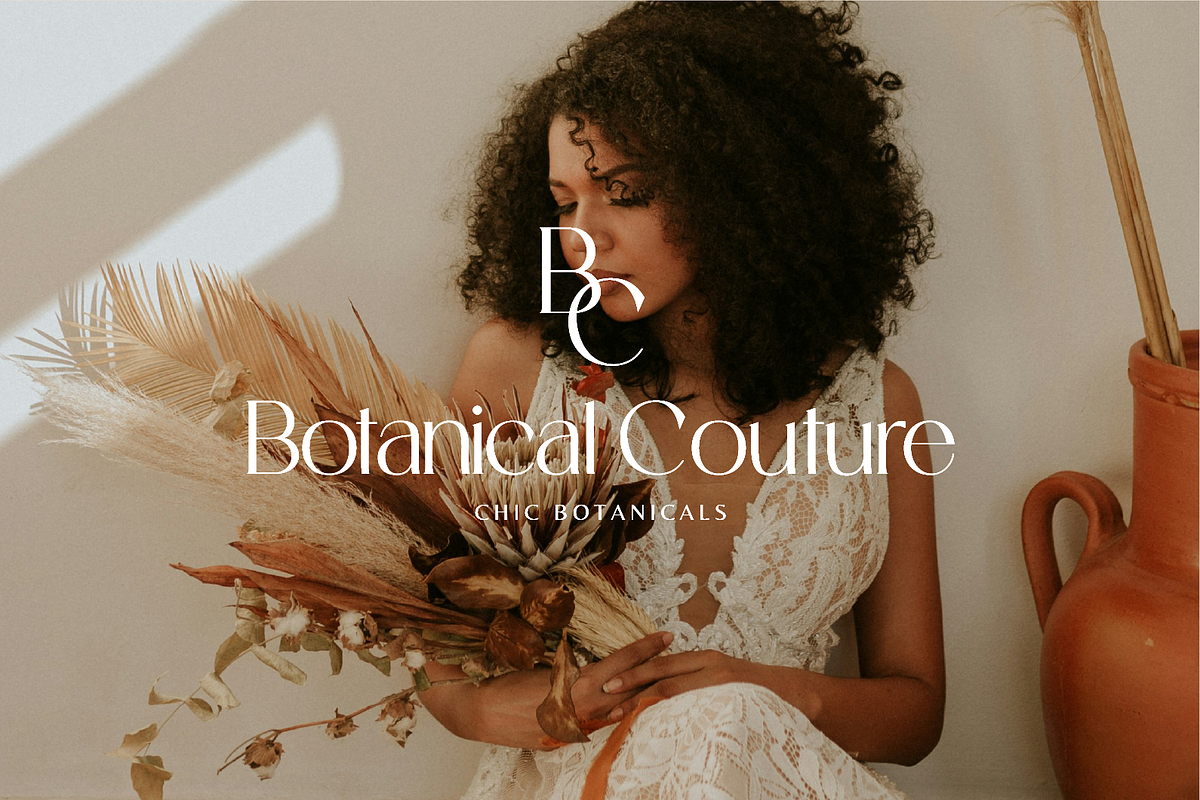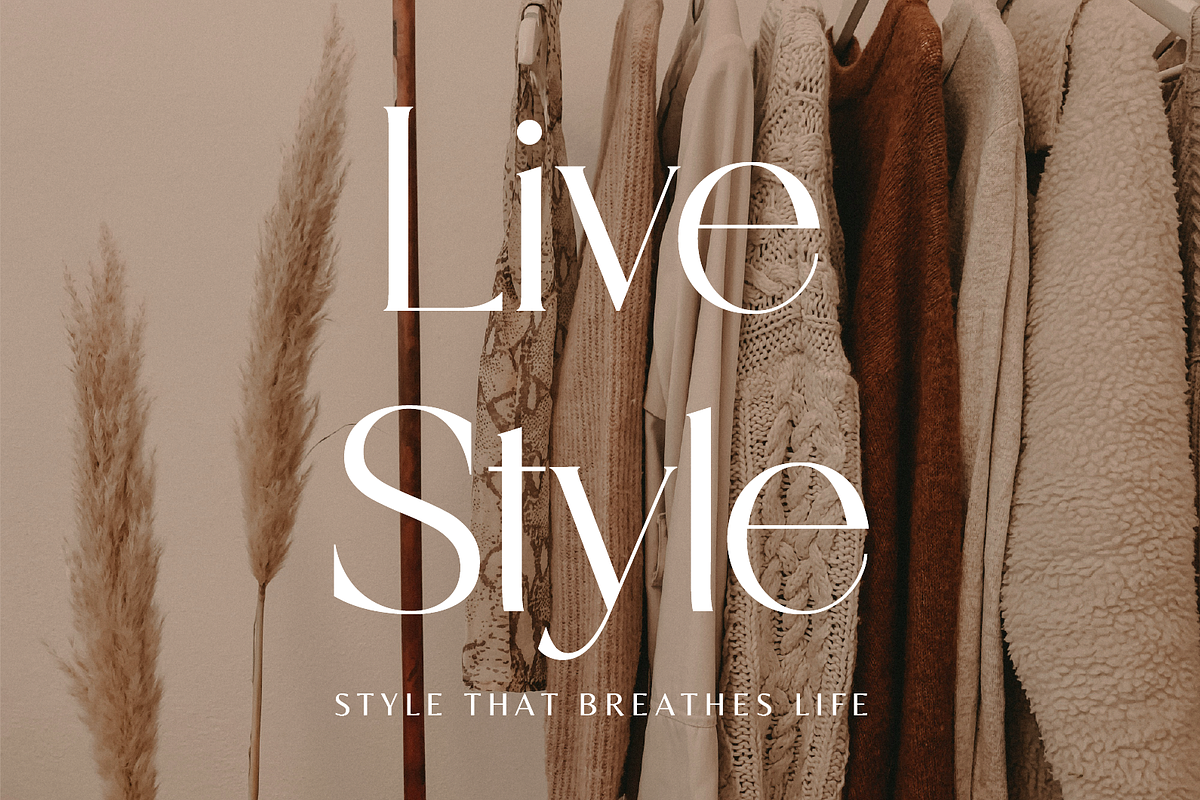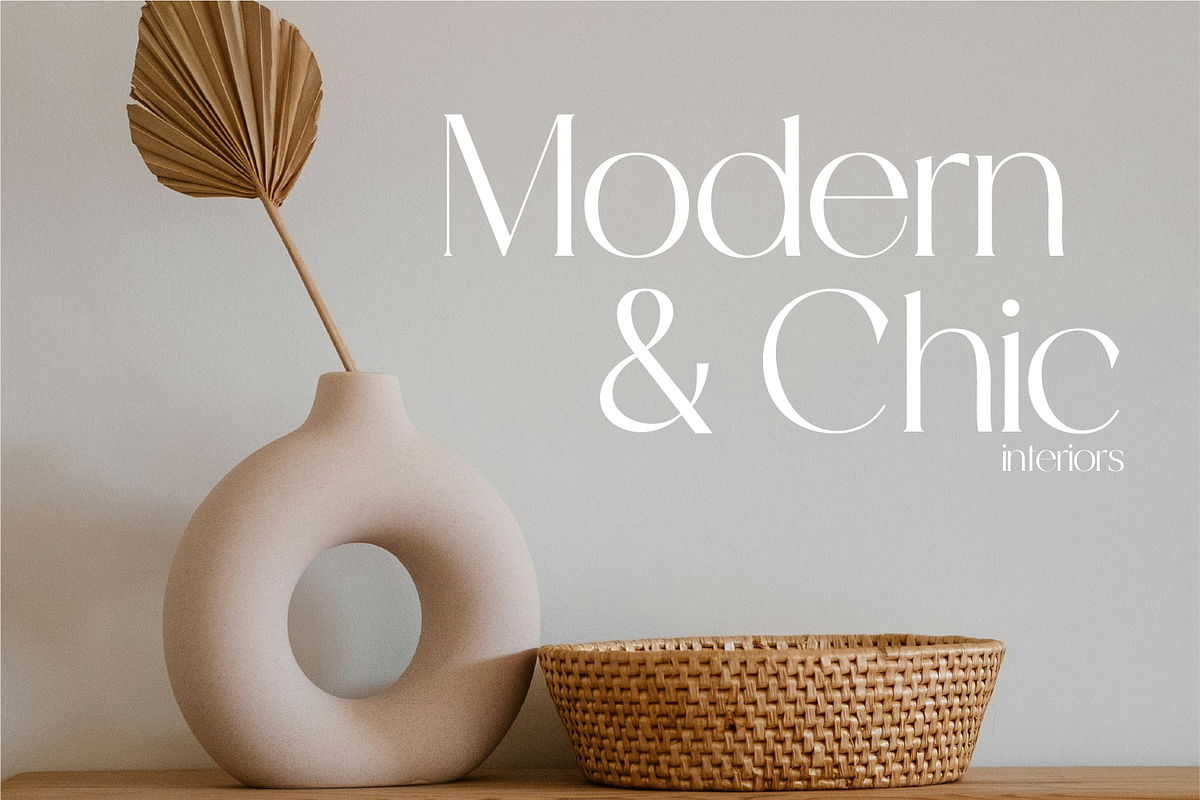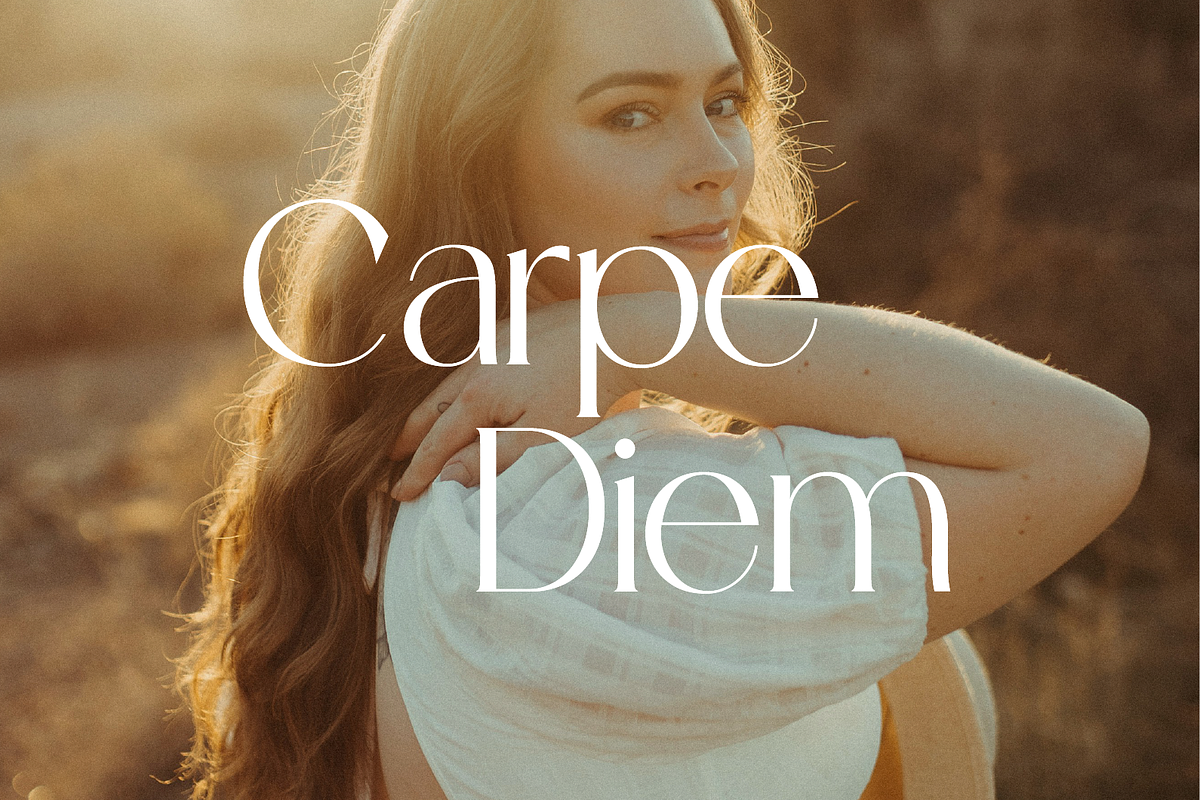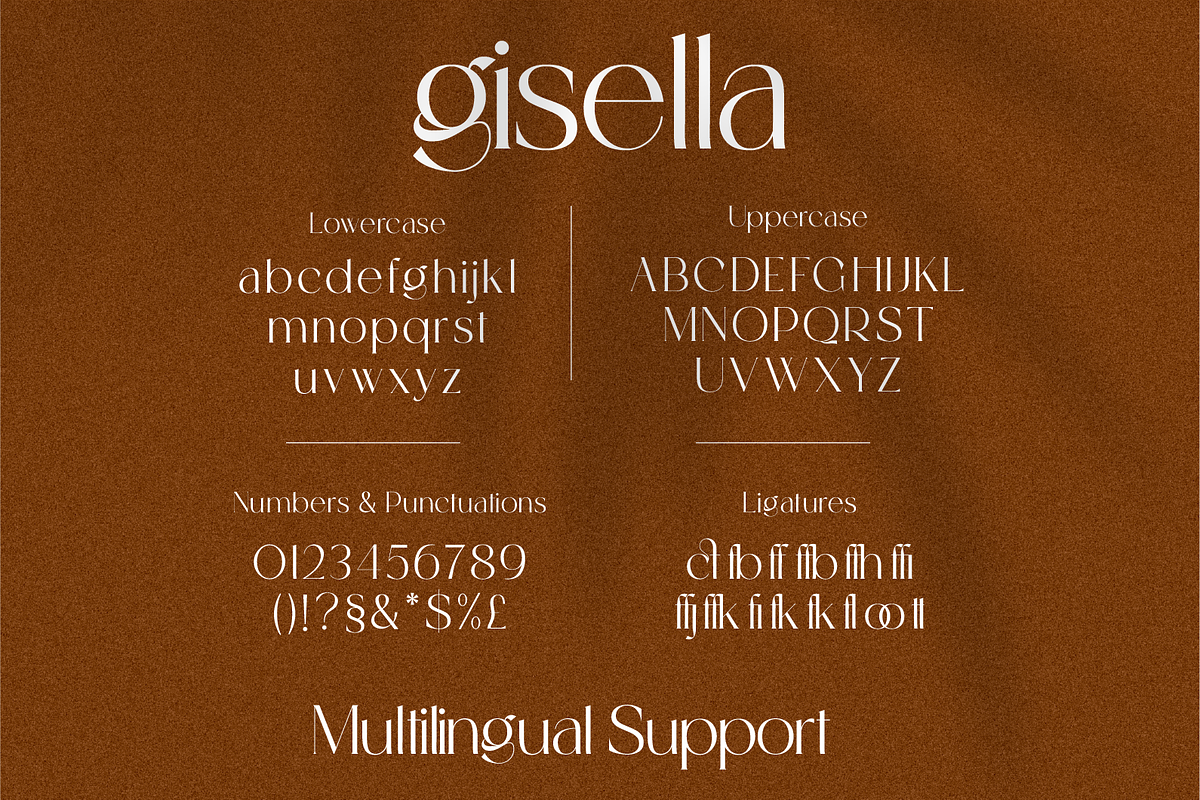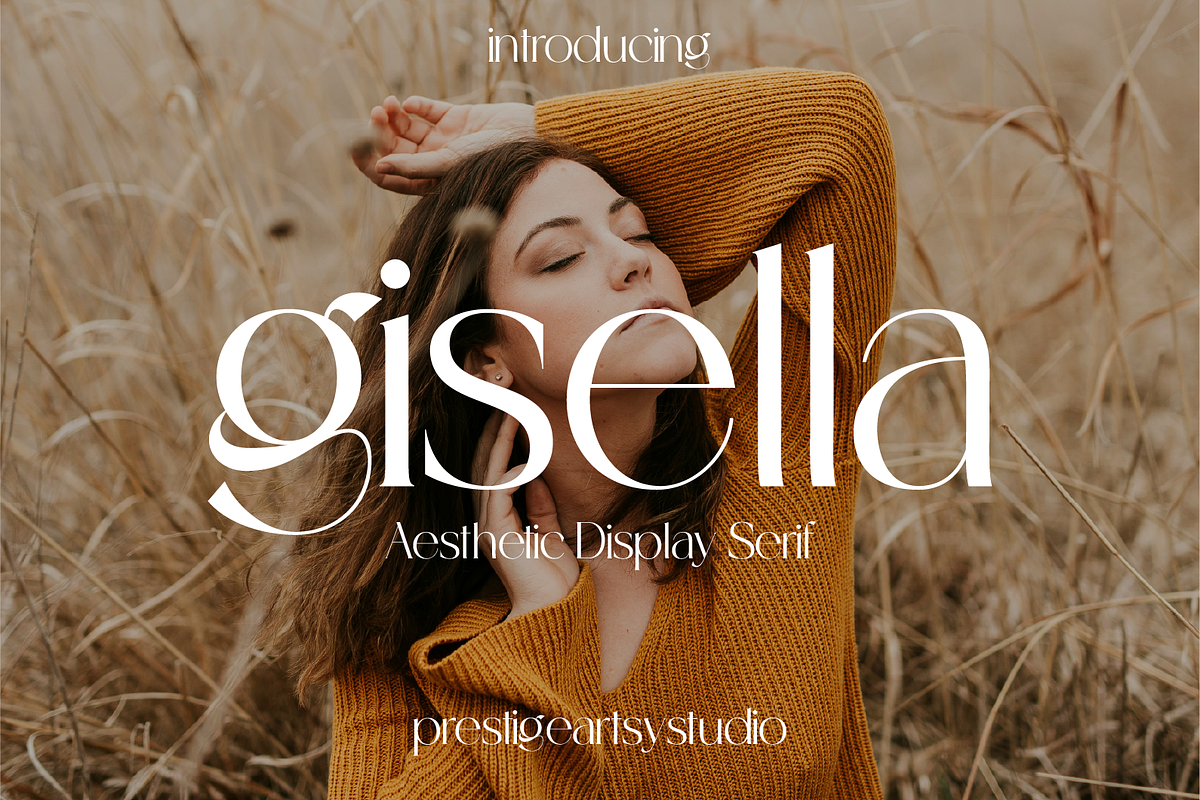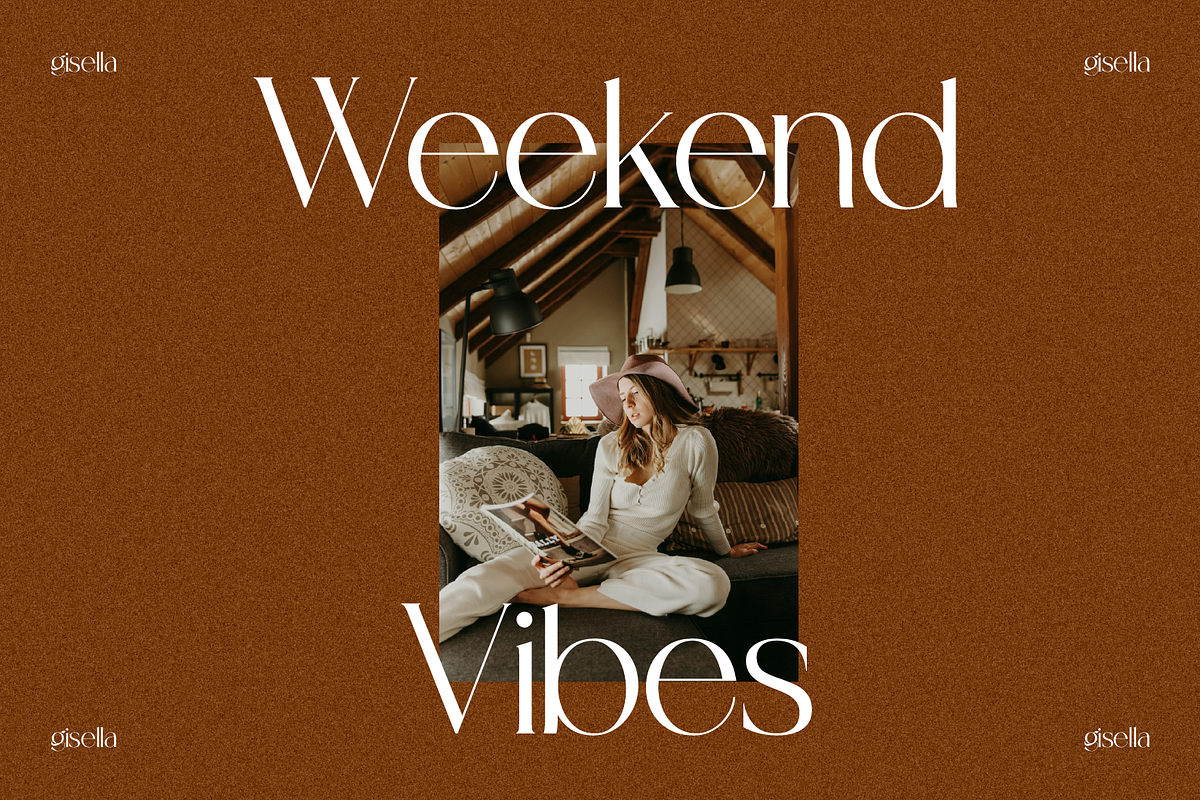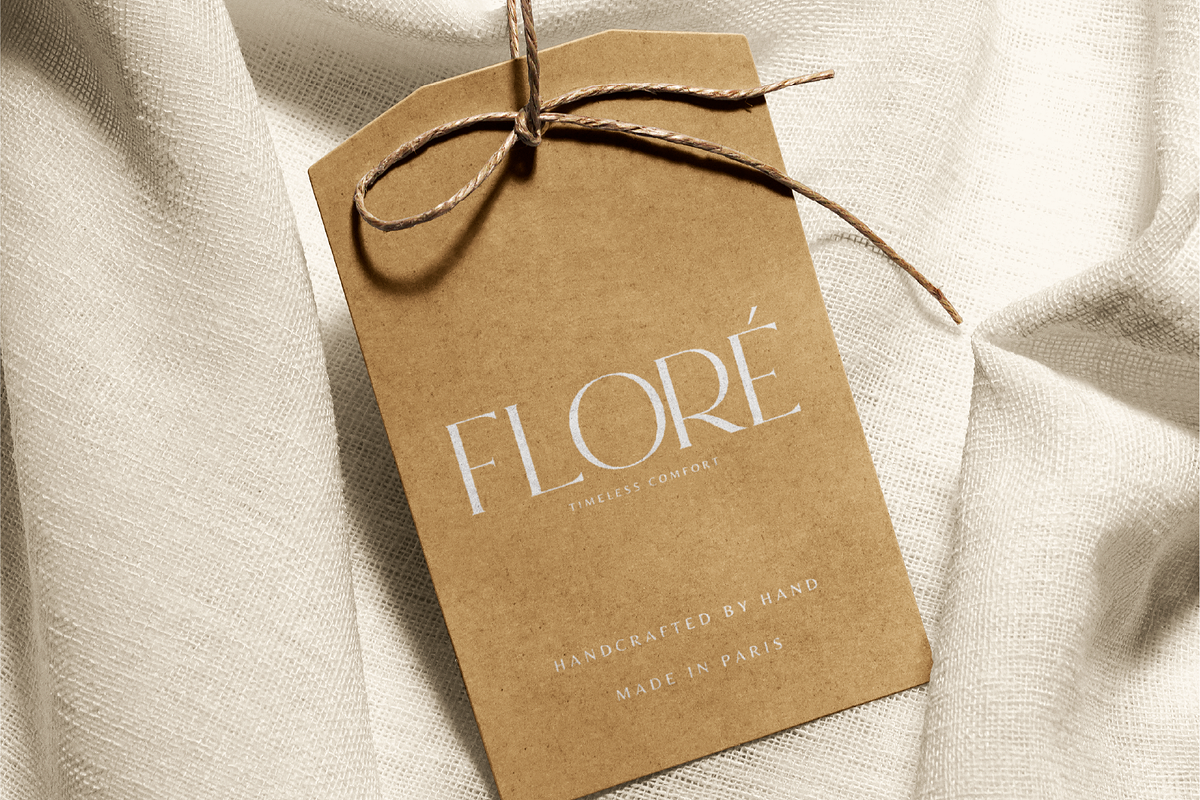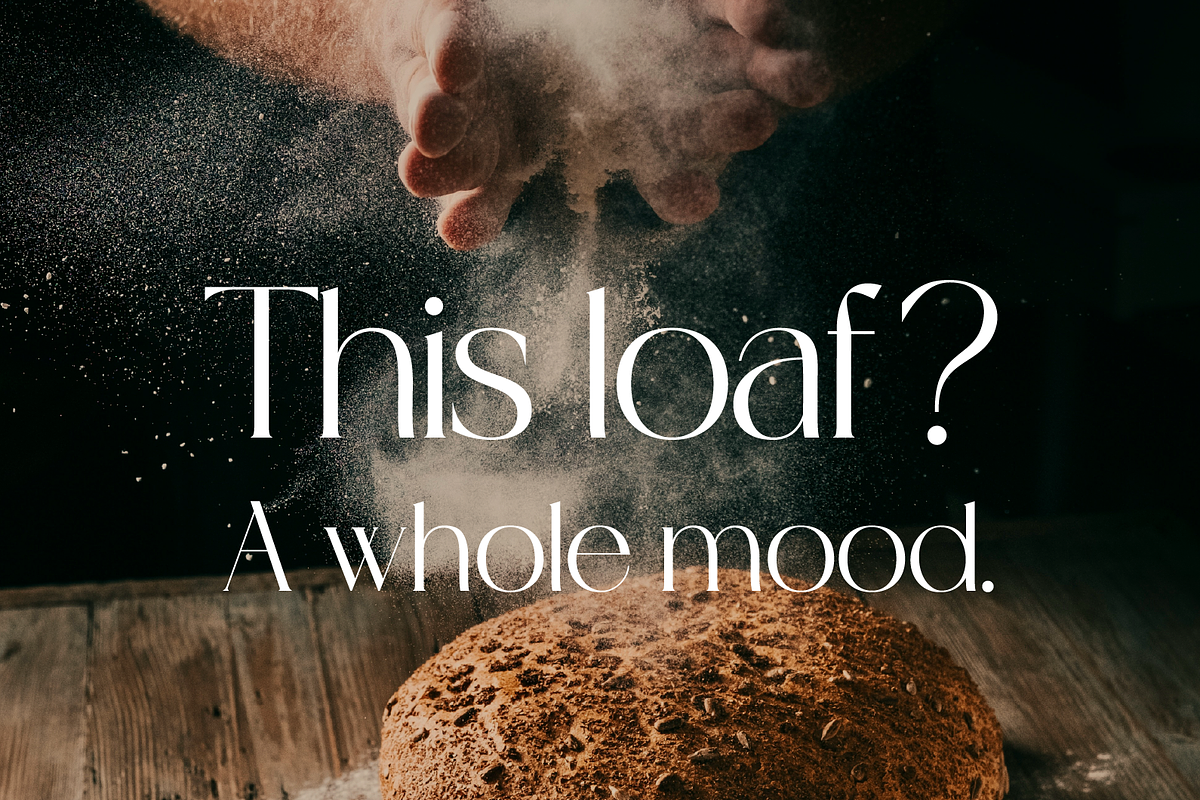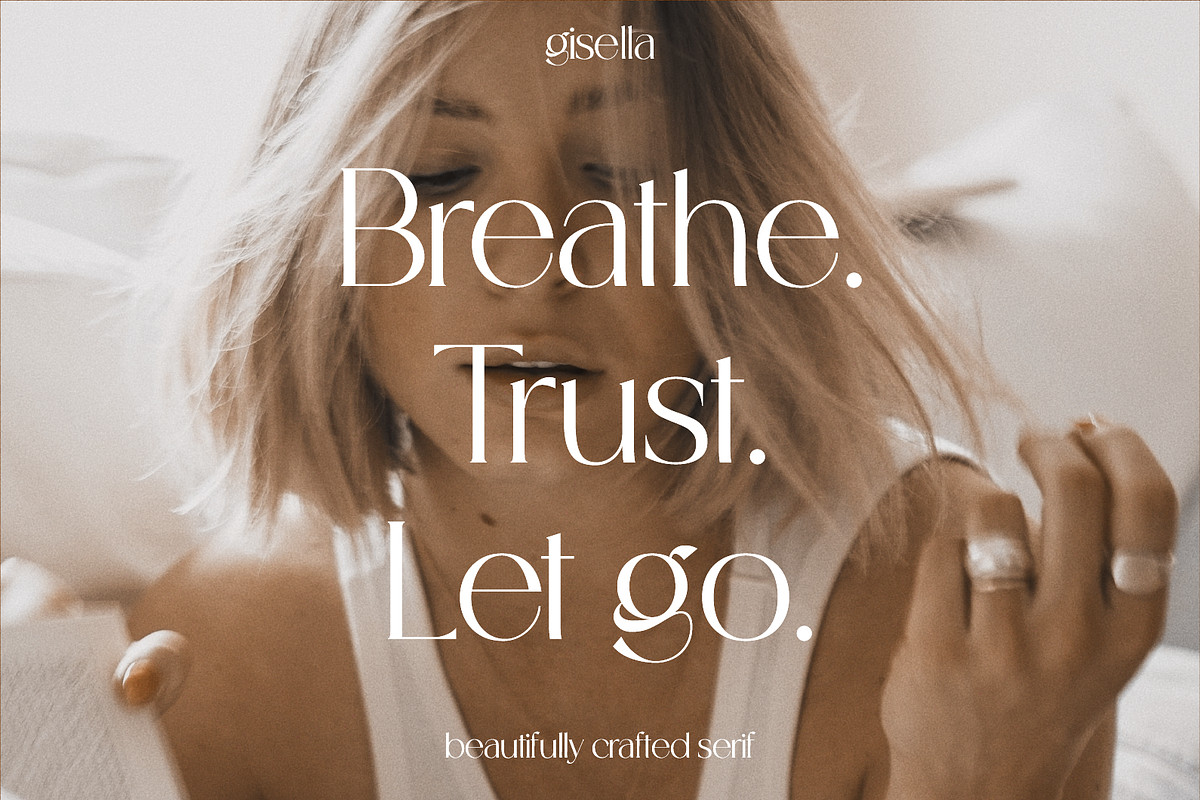
Gisella An Aesthetic Display Serif
Introducing Gisella, a refined serif typeface that blends timeless elegance with contemporary flair. Designed for creatives who crave sophistication, Gisella features sleek lines, graceful curves, and stylish ligatures that elevate any project with a touch of class.
Whether you're crafting high-end branding, fashion editorials, wedding invitations, or chic social media graphics, Gisella offers the versatility and charm to make your work unforgettable
✦ Perfect For:
- Luxury Branding
- Editorial Design
- Fashion & Beauty Projects
- Logo Design
- Invitations & Stationery
- Modern Quotes
Gisella’s gentle curves and sophisticated contrasts bring a unique personality to your designs while remaining effortlessly legible and highly customizable.